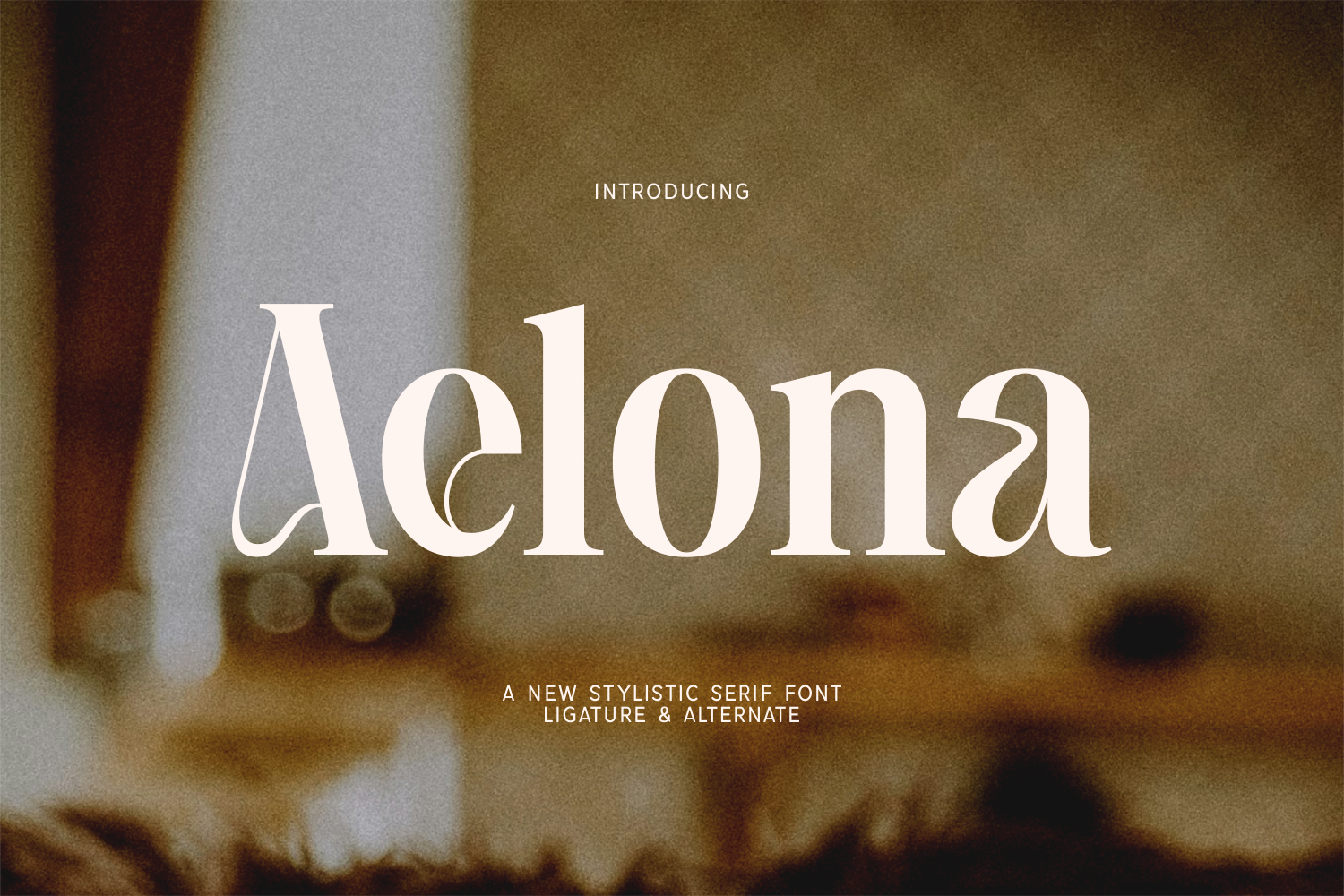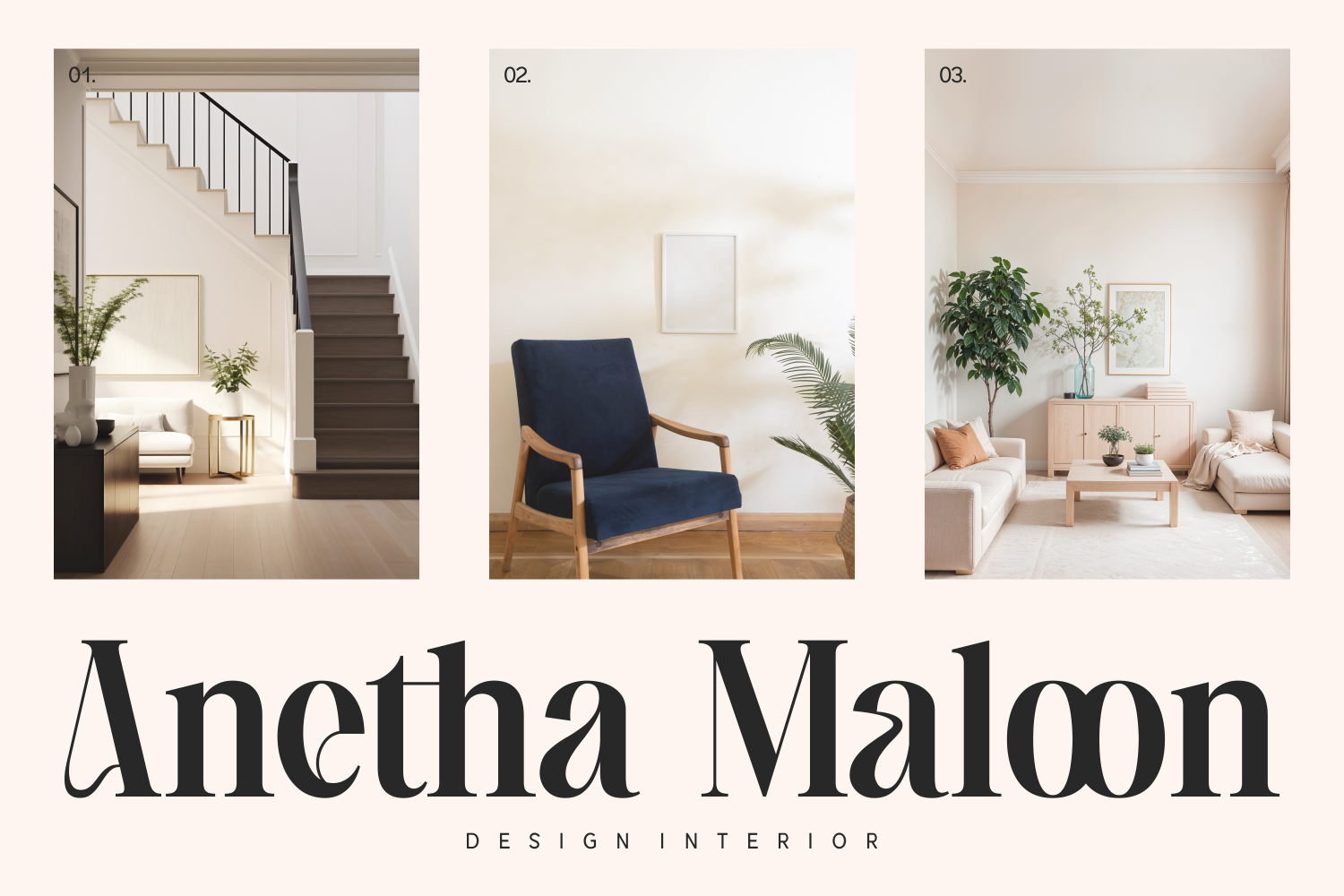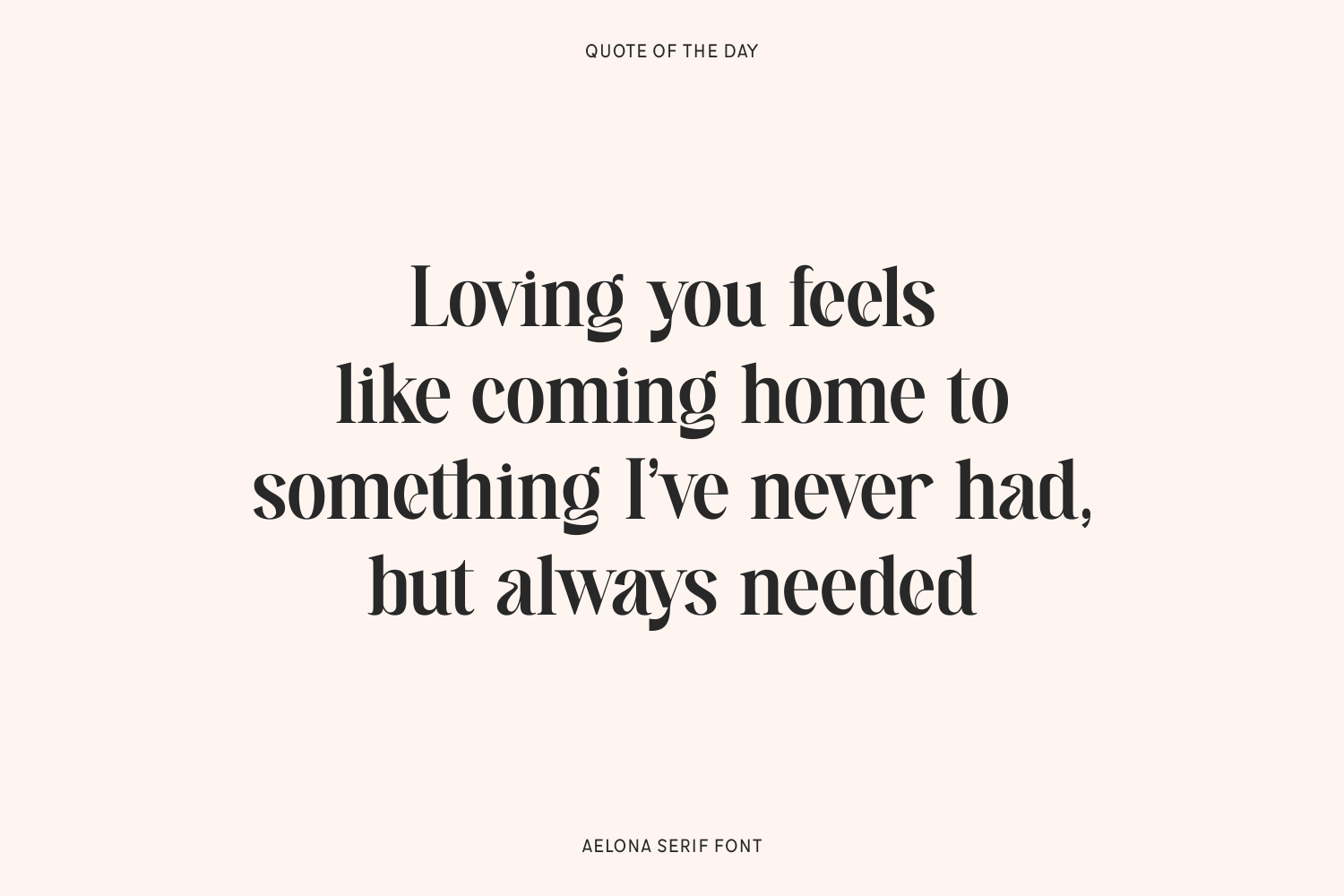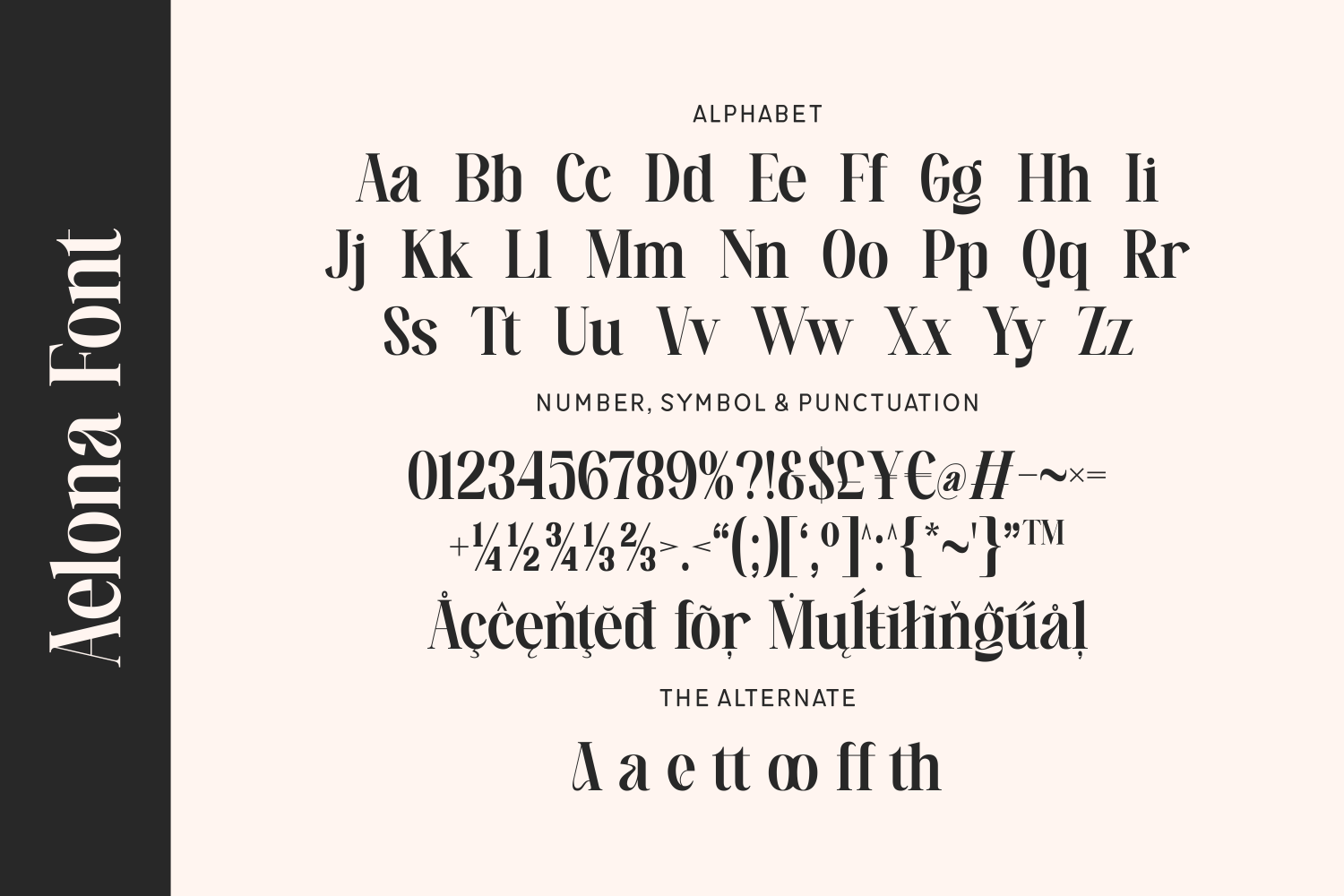
Aelona is a stylistic serif font that blends timeless elegance with bold personality. Featuring refined curves, striking contrast, and unique ligature and alternate options, Aelona is designed to make a statement. With multilingual support and graceful alternates, Aelona delivers high-impact sophistication in both print and digital projects.